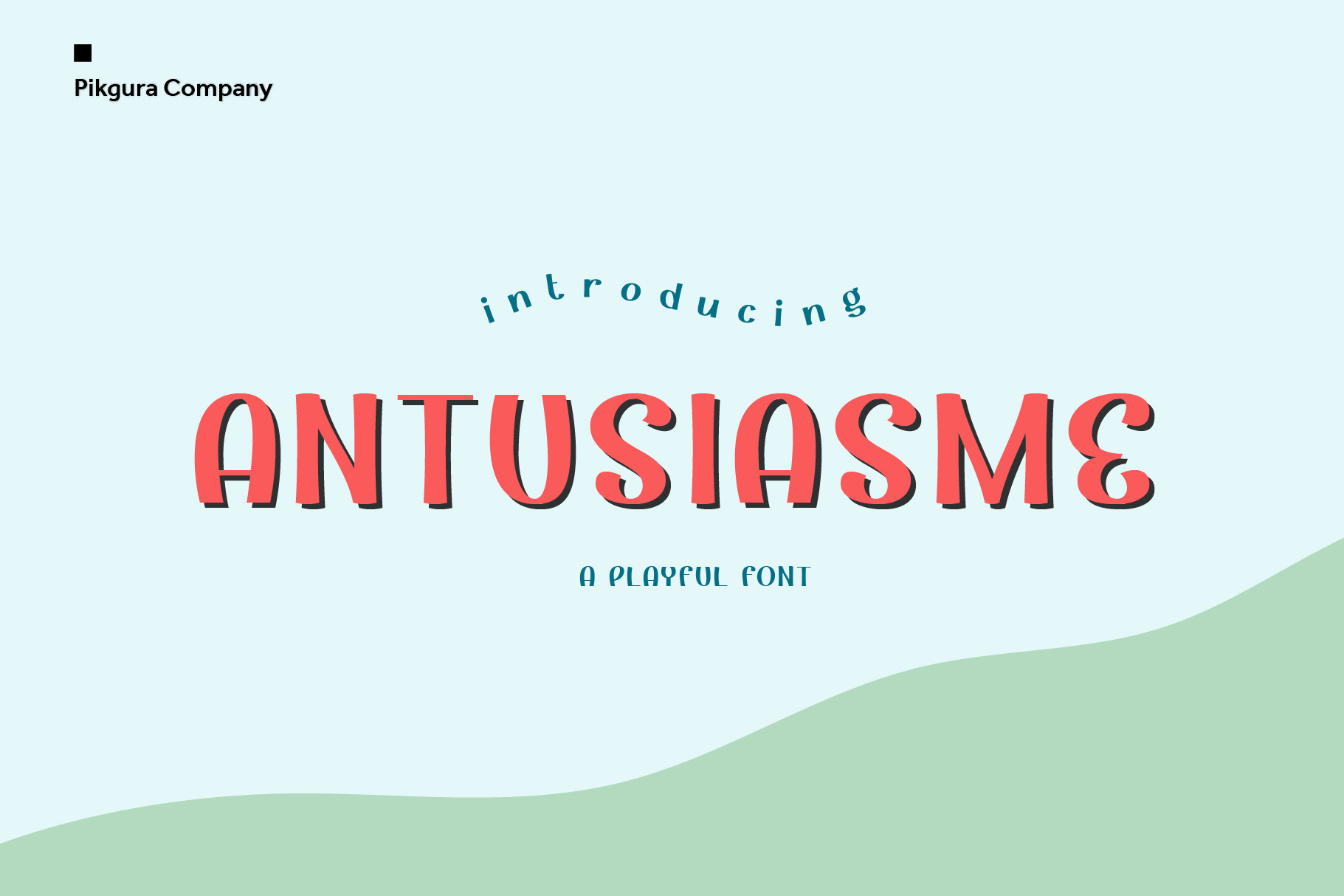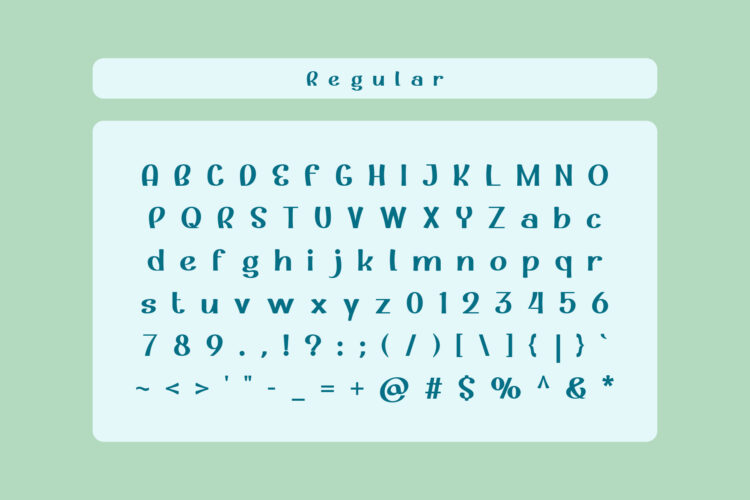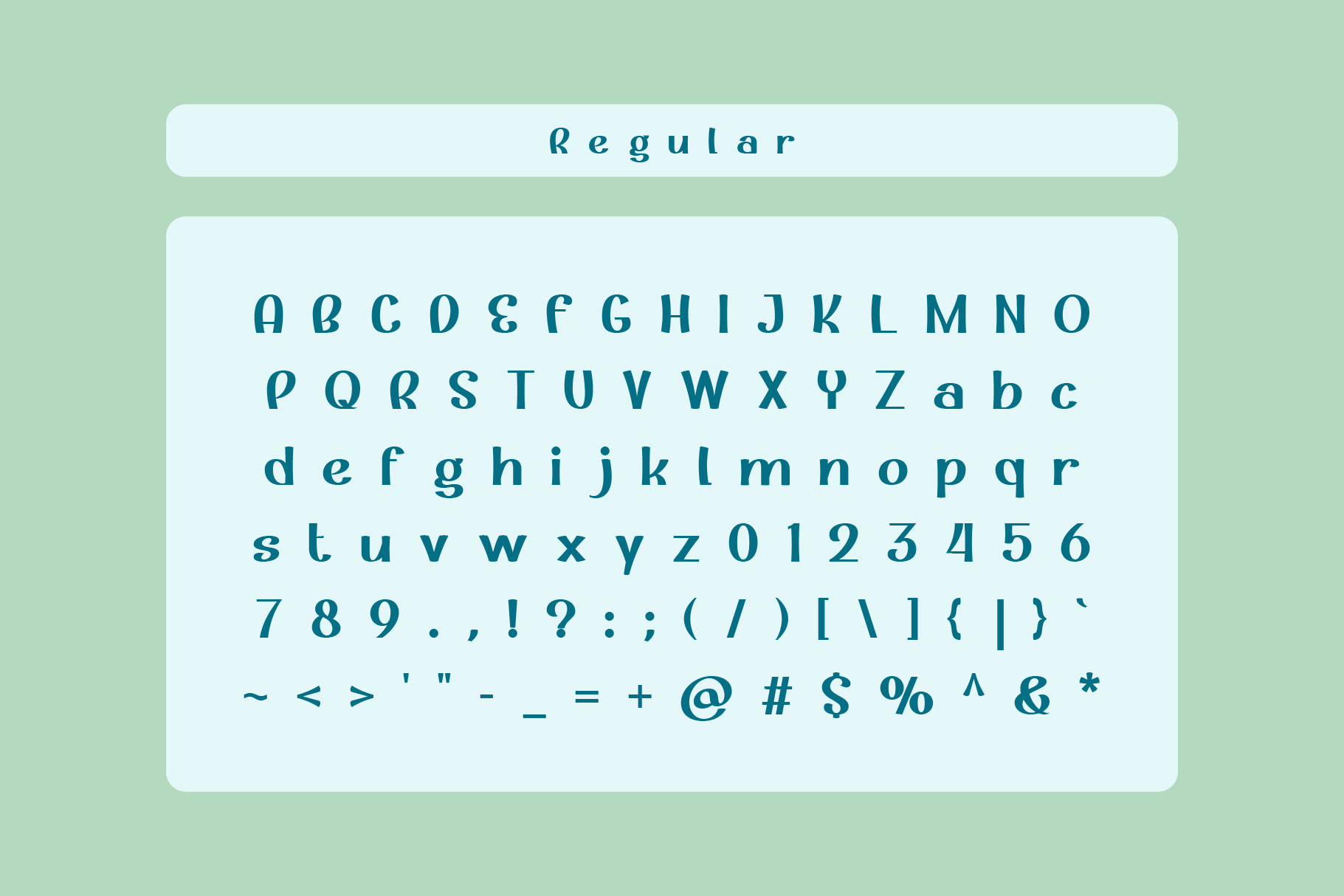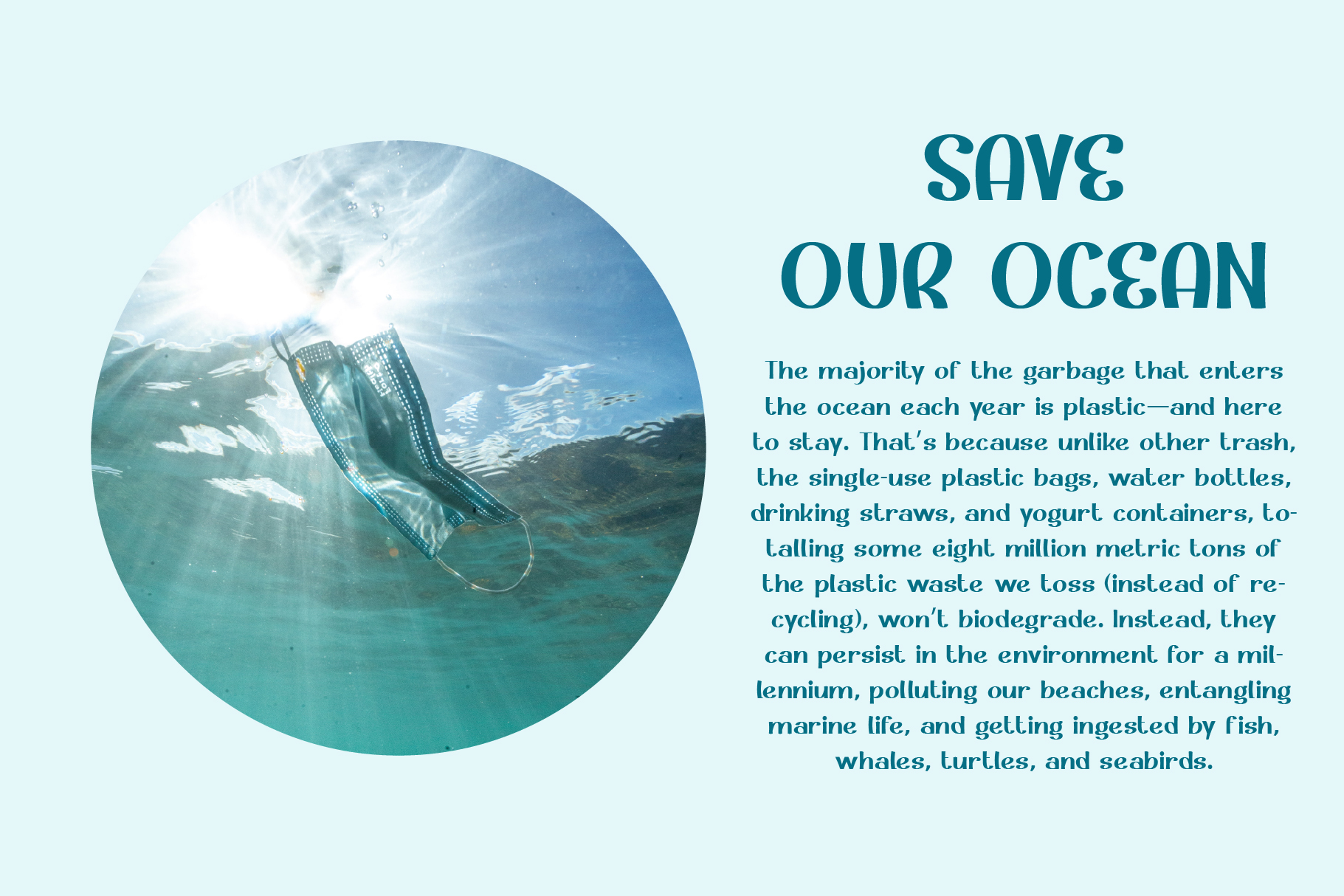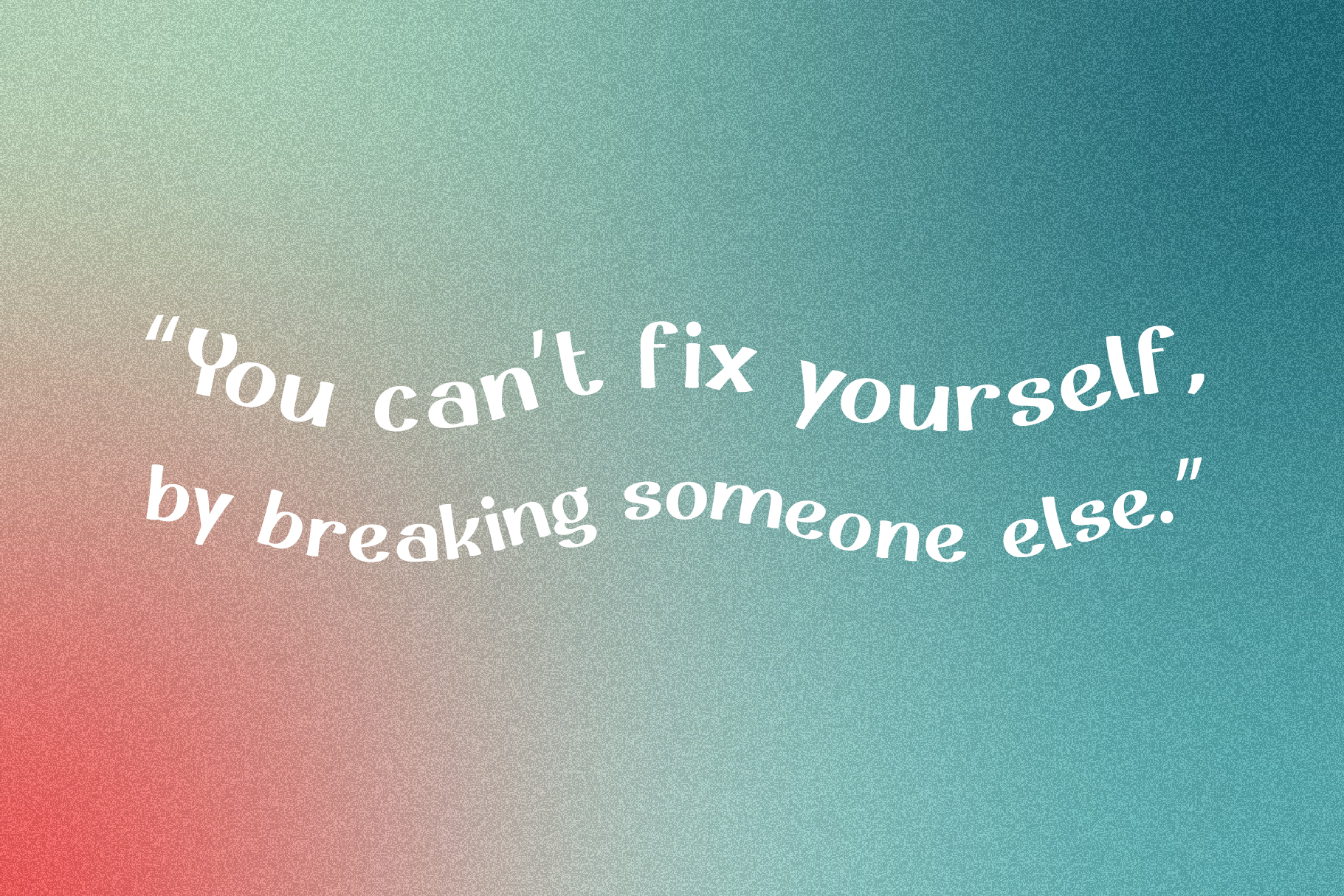
Check out this super playful bold Sans Serif font! The Antusiasme Font has arrived to take your branding and poster design to the next level!
Antusiasme Font is a very good font for those who want to make a funny and interesting statement. Its clean, bold lines make it a great choice for logos, titles, and body text. With its features, you can easily create a cohesive look for your brand or project. Plus, its simplicity makes it easy to read and understand, so you can be sure your message is being delivered loud and clear.